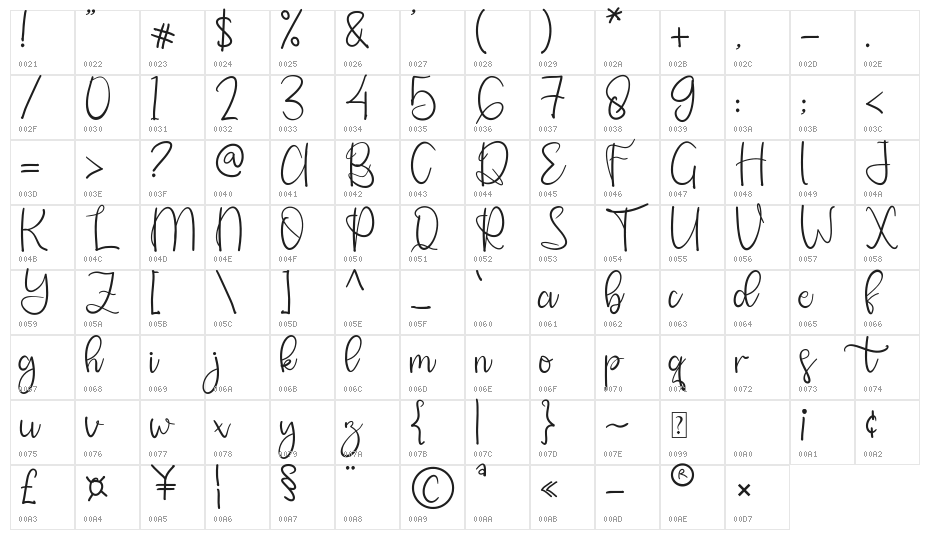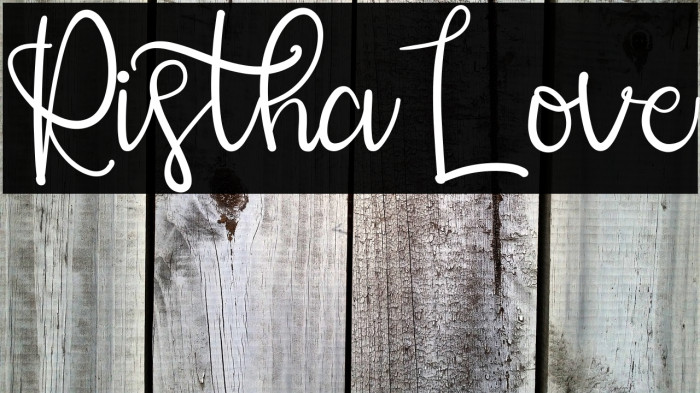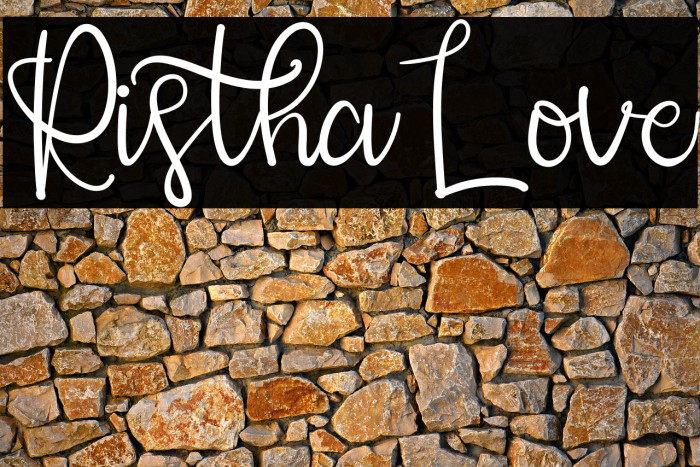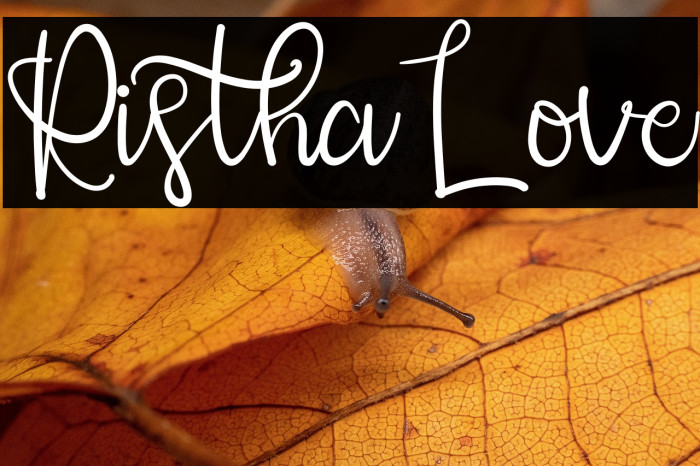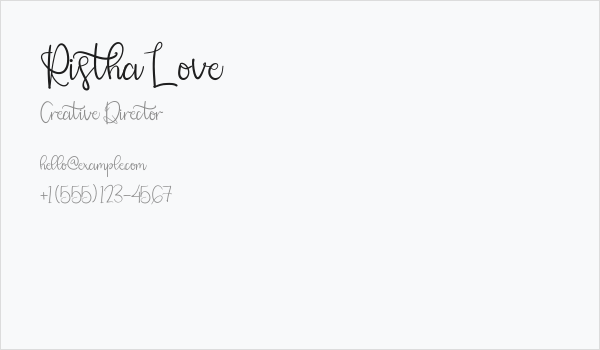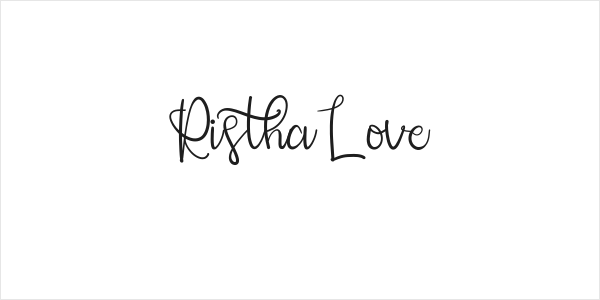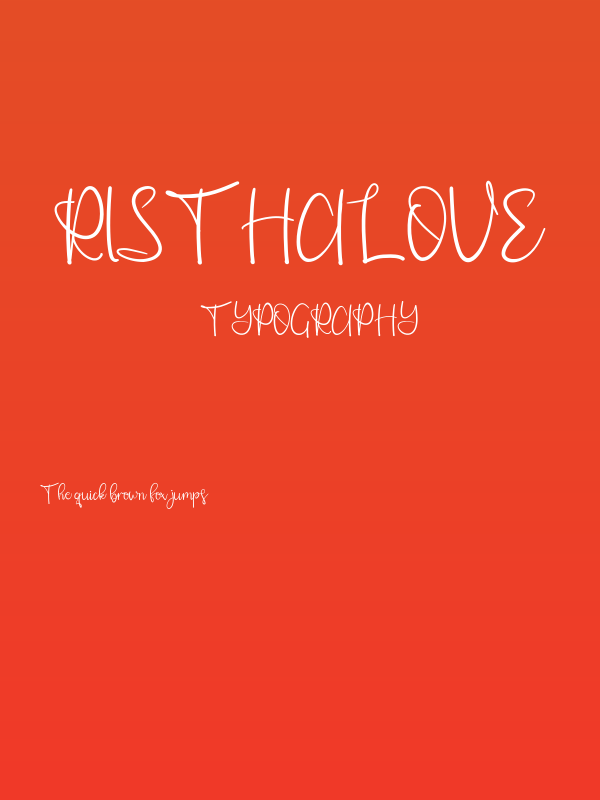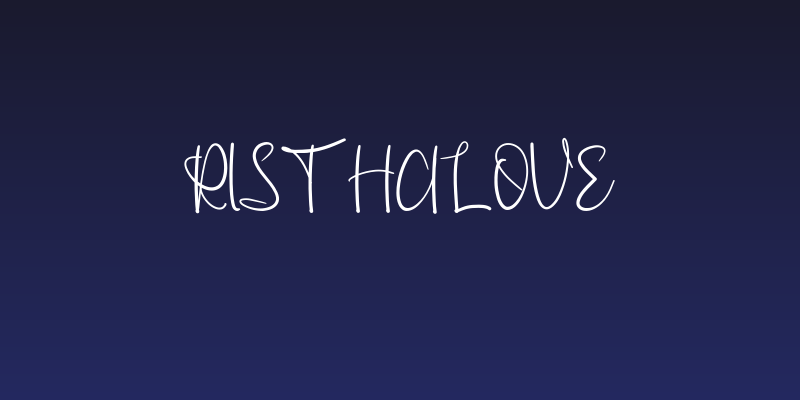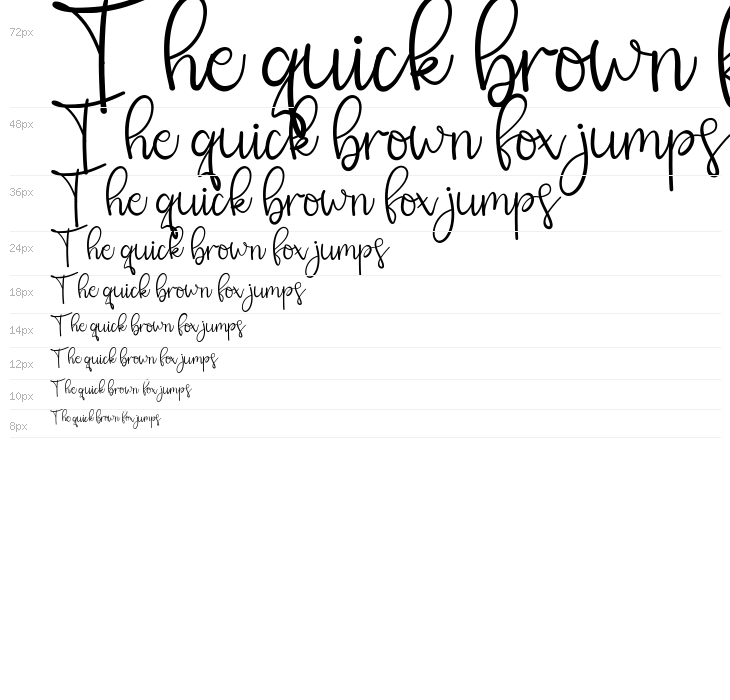
RisthaLove Font
RisthaLove Description
A playful, handwritten script font with tall, narrow letterforms and exaggerated loops, featuring both uppercase and lowercase sets with a whimsical, casual feel. The strokes are consistent in thickness, and the characters are loosely spaced, giving an airy and expressive appearance.
| Overall Style | Decorative, Playful, Casual |
| Use Case | Logos, Invitations, Headlines, Social media graphics |
| Proposed Projects | Wedding invitations, greeting cards, personal branding, social media graphics, playful posters. |